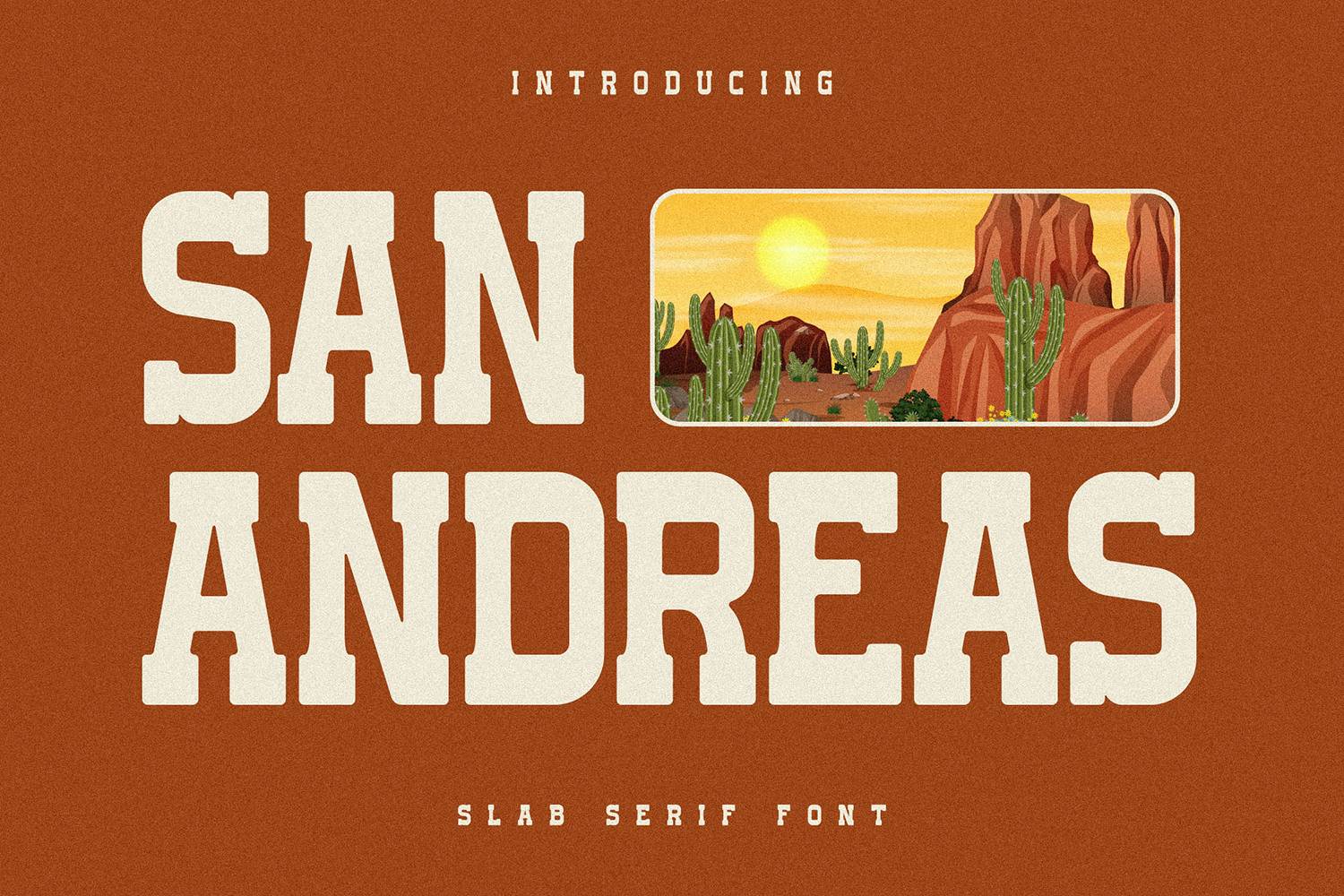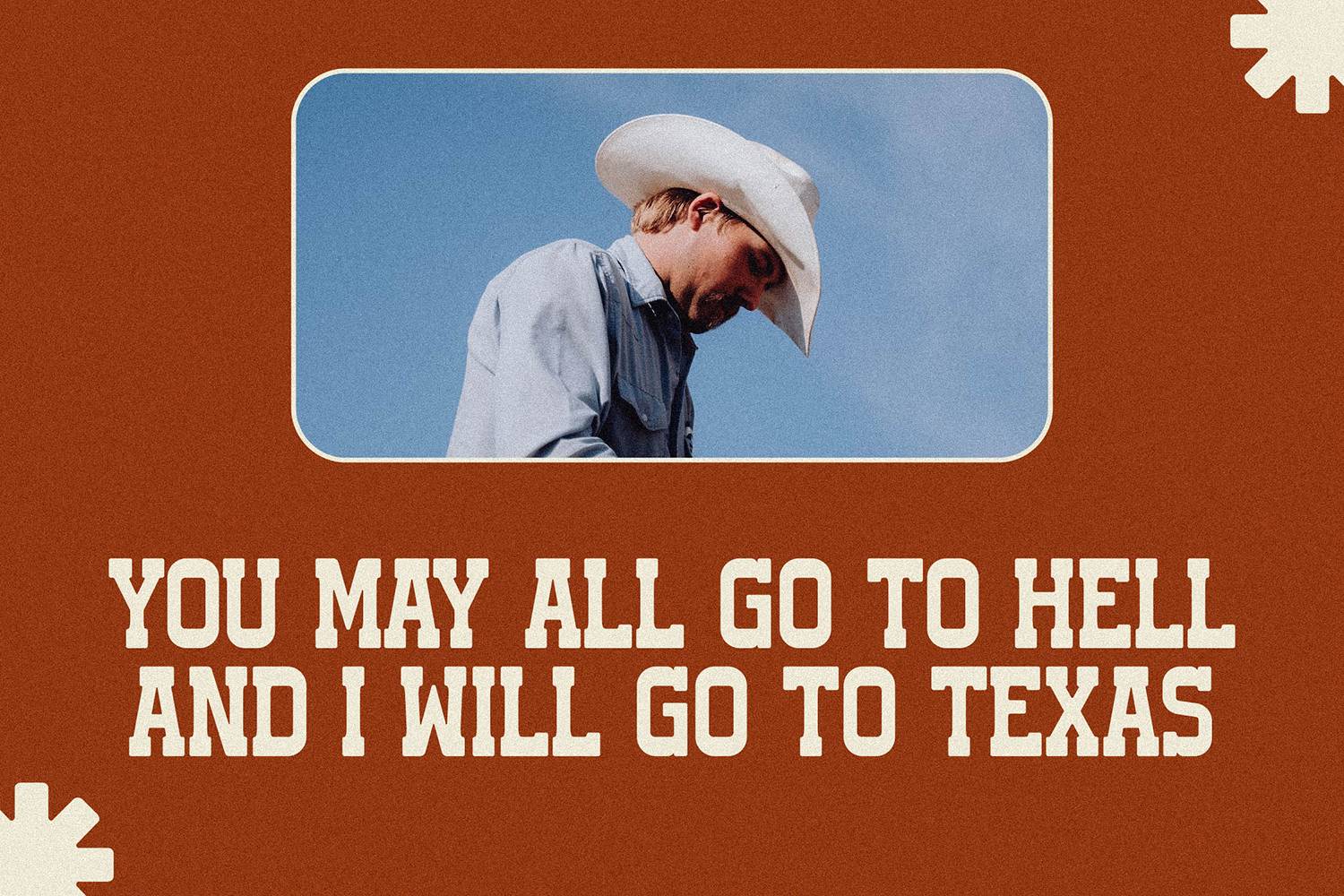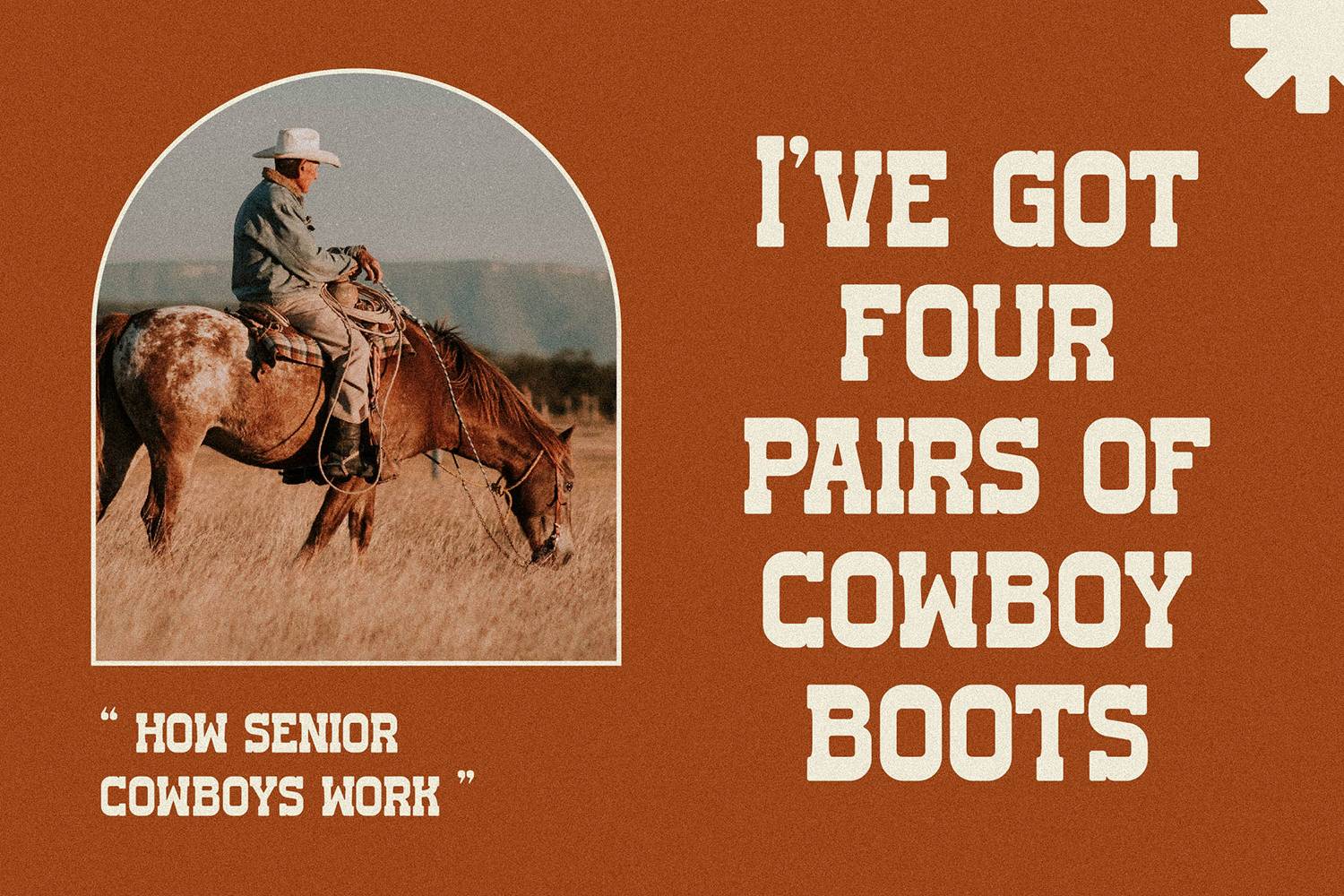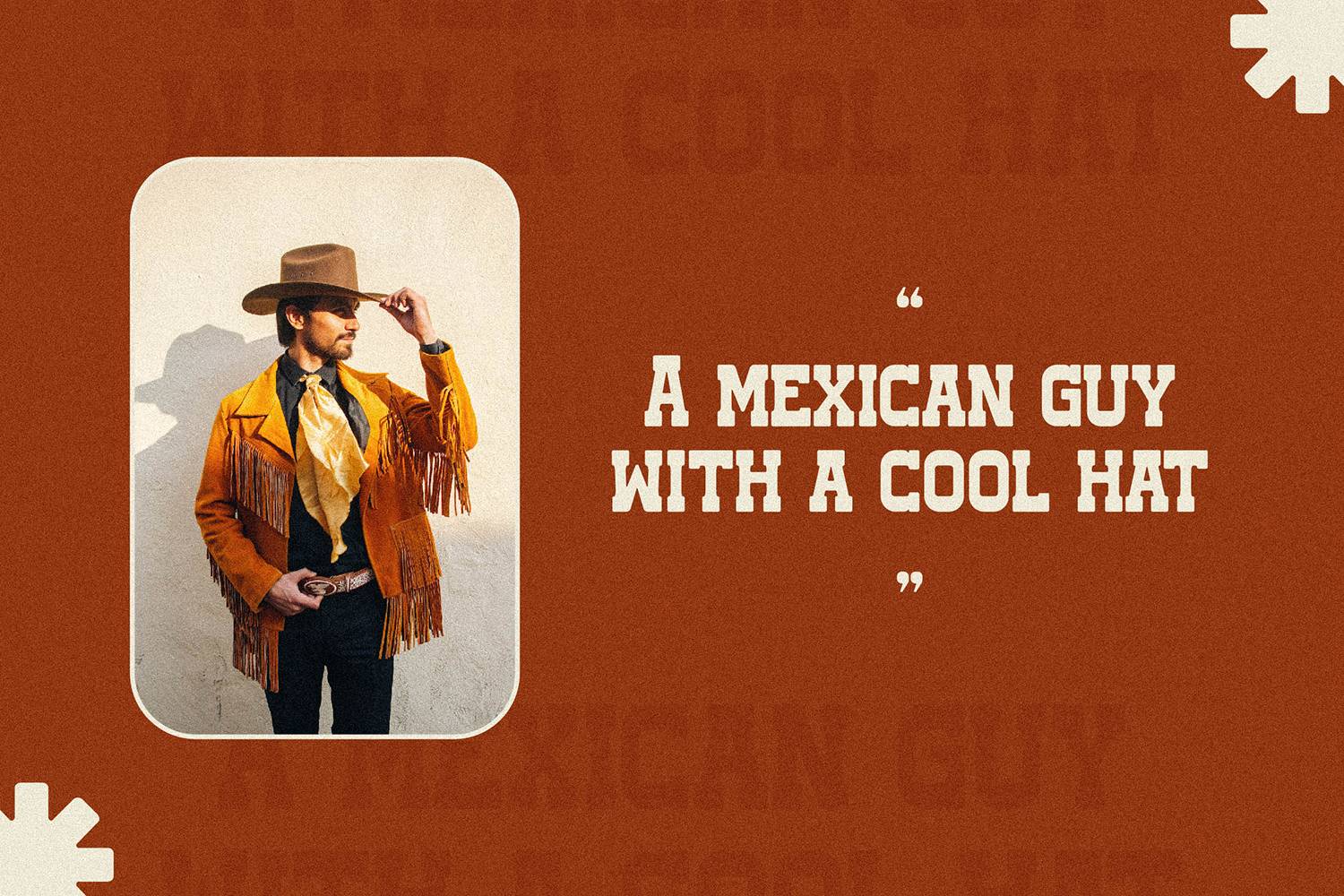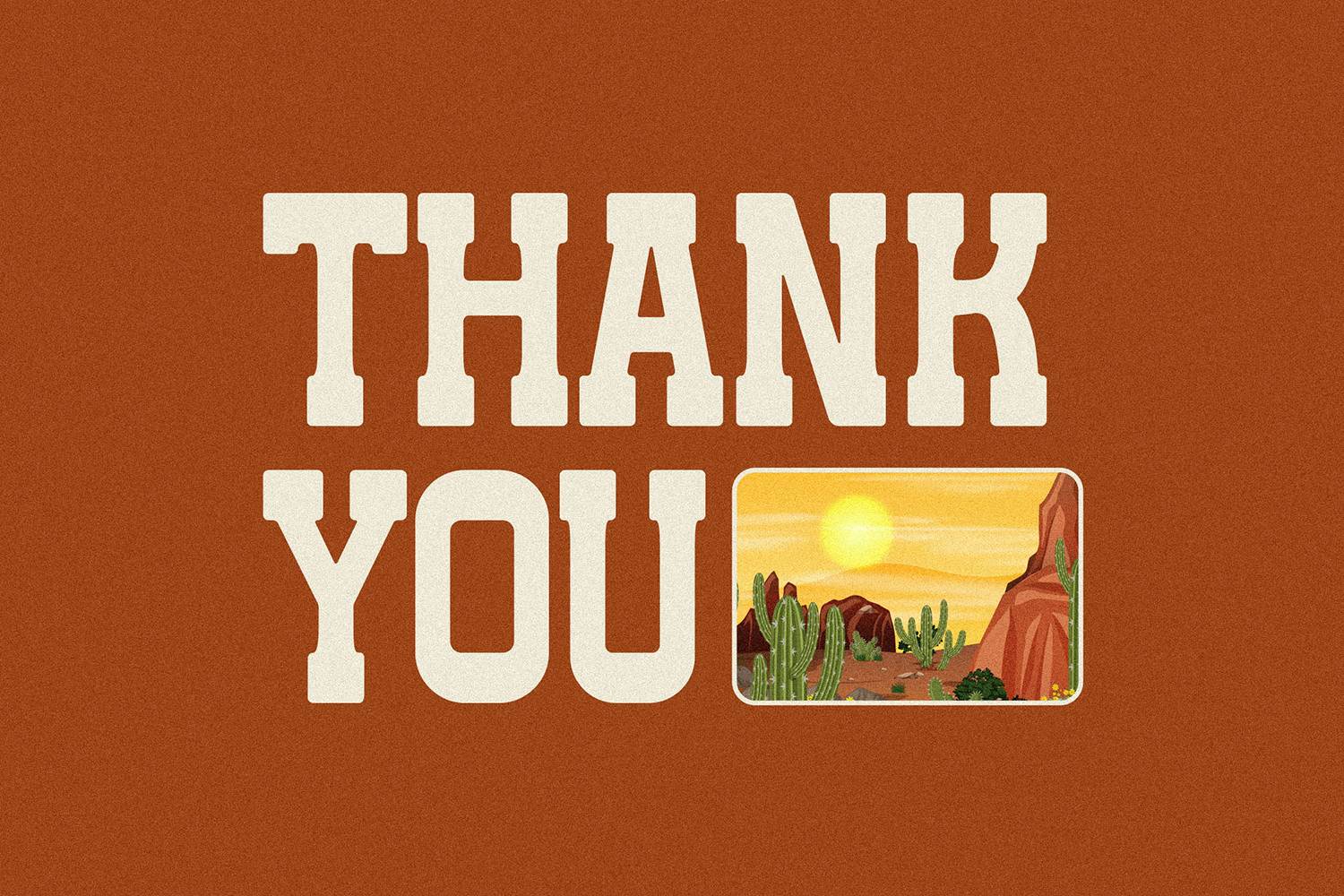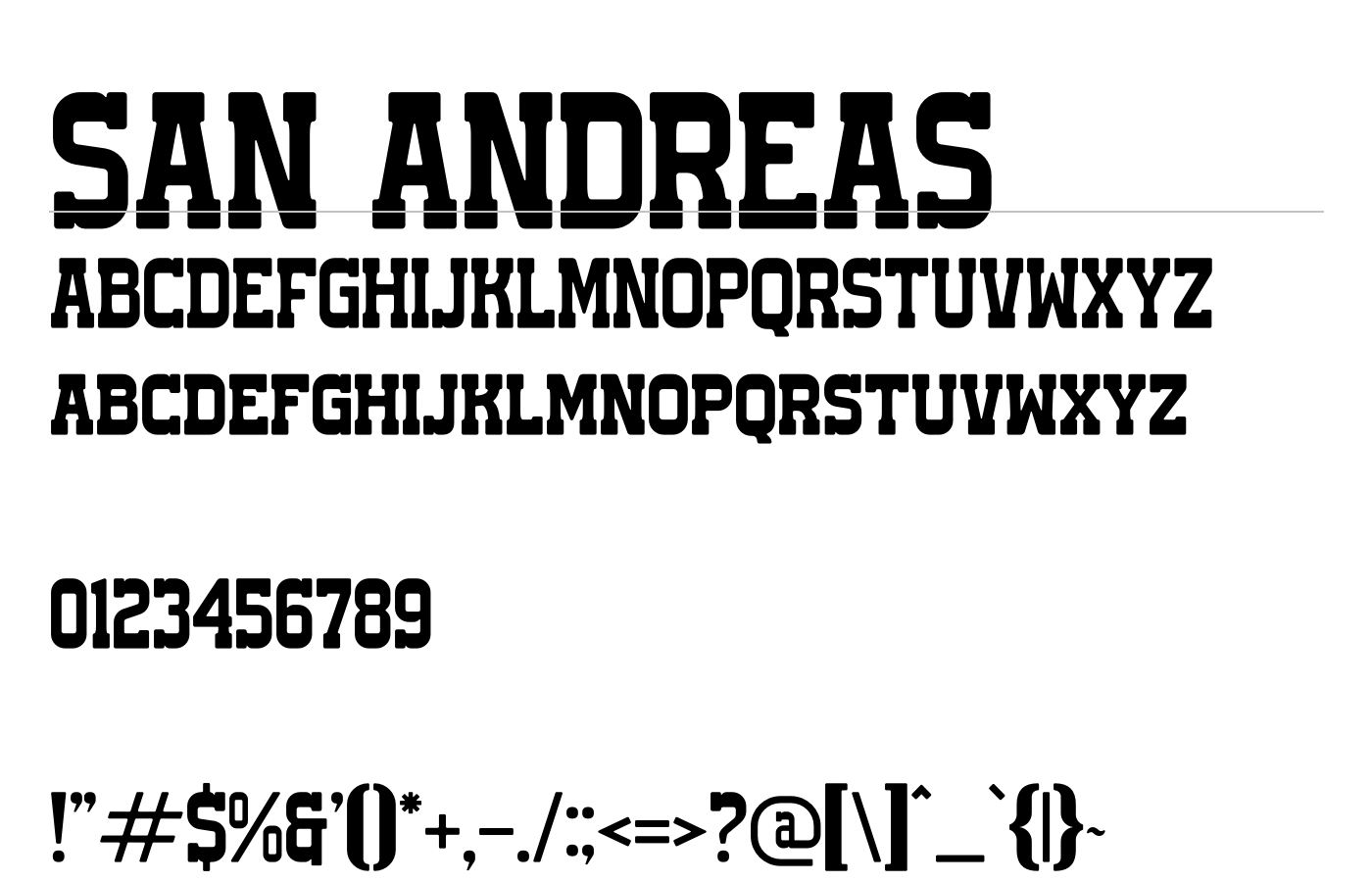
San Andreas is a bold slab serif font characterized by its strong, blocky letterforms and thick, bracketed serifs that give it a sturdy, impactful presence. Its condensed width and uniform stroke weight make it ideal for commanding headlines, logos, and branding where a rugged, vintage Americana feel is desired. This font suits designs that want to project strength and confidence, particularly in sports, western themes, or retro-inspired projects.
San Andreas Font
About San Andreas Font